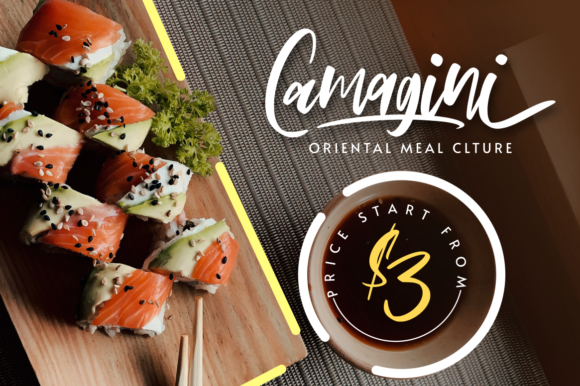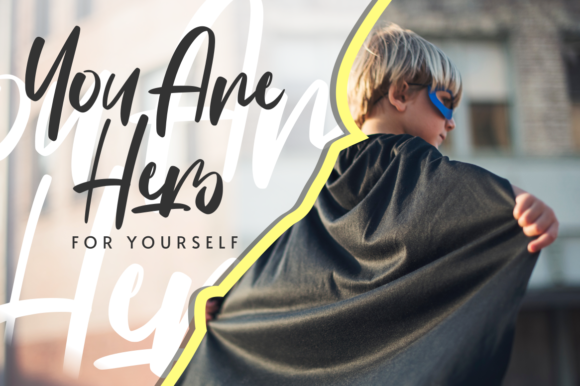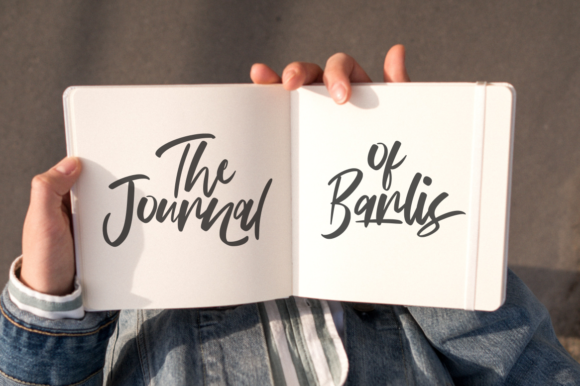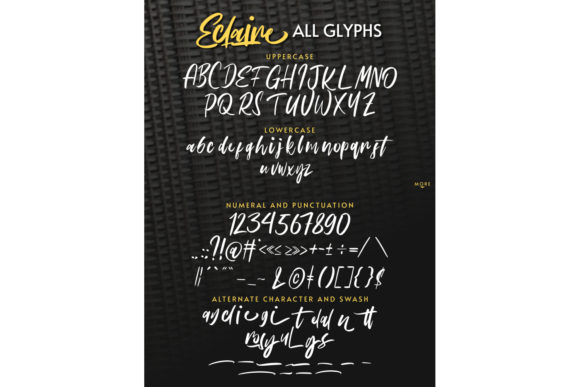
Introduction to Eclaire Font
Eclaire is a beautiful and cursive handwritten font.
It is suitable for any branding, product packaging, invitation, quote, t-shirt, label, poster, logo that you wish to develop .